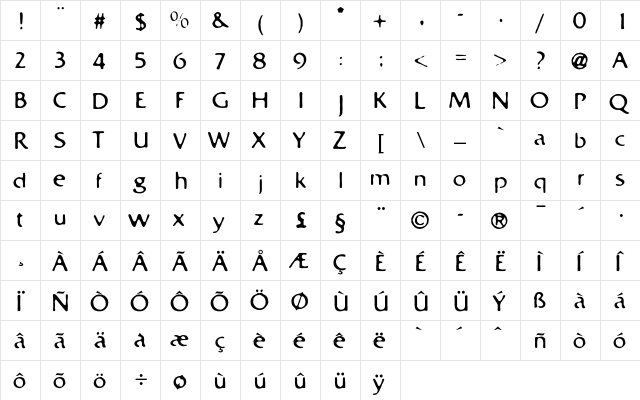
Bastard Regular Font Preview
Bastard Regular
Bastard Regular Font Details
Design Context for Bastard Typeface
Bastard takes a measured approach to typography — its balanced proportions and neutral character make it a reliable workhorse for both digital and print work.
Pro Tip: Pair Bastard with a font of contrasting weight or personality to build a more expressive typographic hierarchy.